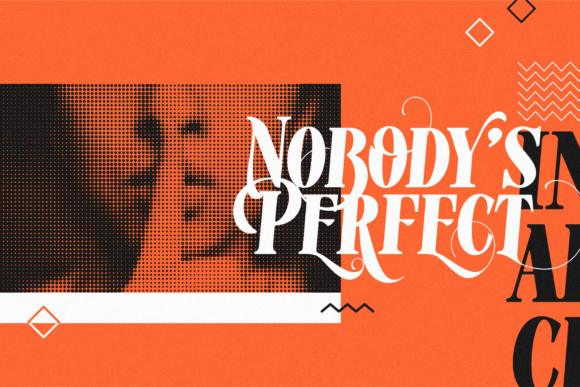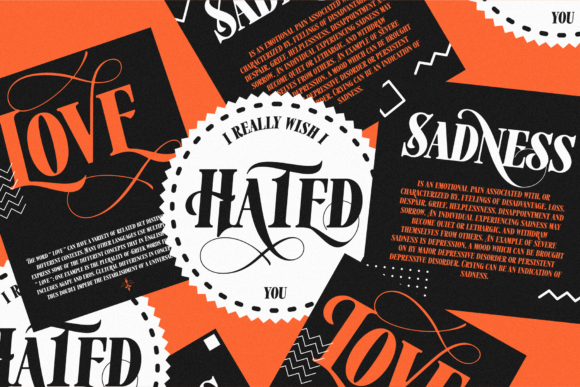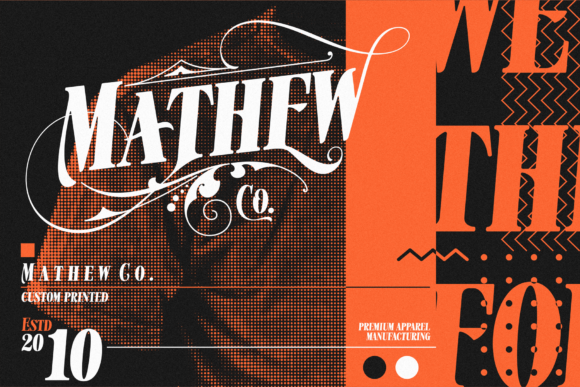
Introduction to Breland Font
Breland is a gorgeous high-contrast display font with a distinct editorial feel.
It will add a hint of sophistication to any design idea .